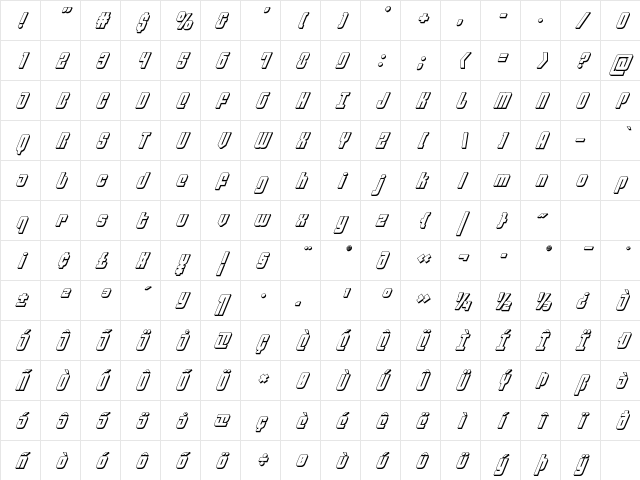
Philadelphia 3D Italic Semi-Italic
Design Context for Philadelphia 3D Italic
Philadelphia 3D Italic is a composed and adaptable typeface that performs quietly and consistently across a wide range of design contexts. The slanted form adds forward momentum and visual energy.
Pro Tip: Use Philadelphia 3D Italic for emphasis, pull quotes, and subheadings where its slanted energy can add rhythm to the layout.